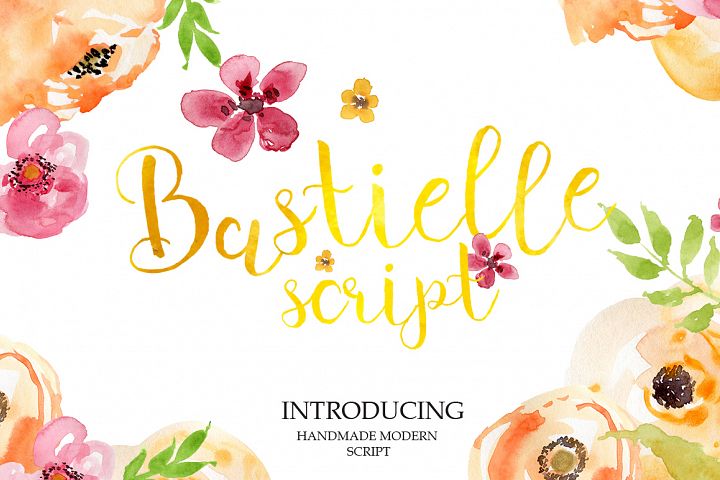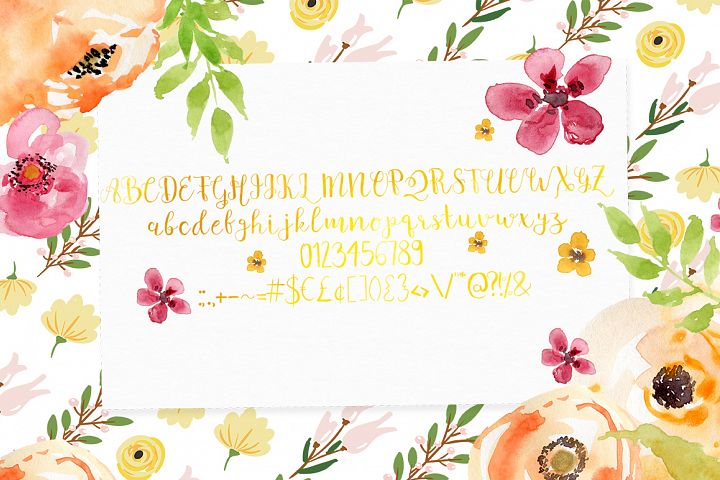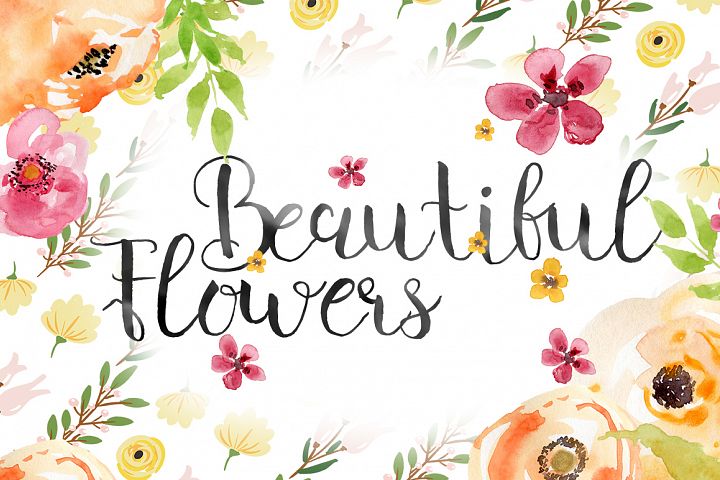
Bastielle Font
About Bastielle Font
Bastielle is a beautiful handmade modern script. It looks like it’s been created with a tiny brush or pencil and is great for adding elegant decorations to your design. It can be used for various purposes such as headings, logos, invitations, t-shirt designs, greeting cards, posters, labels, book covers, brochures, and much more!